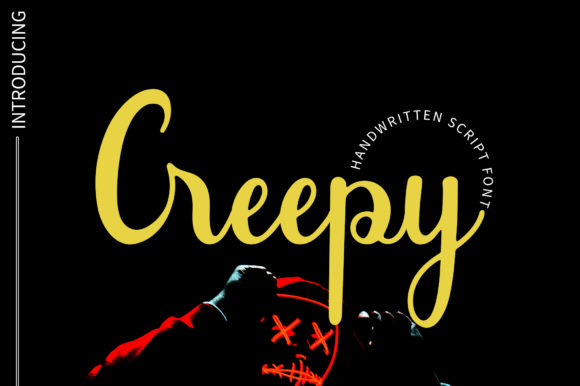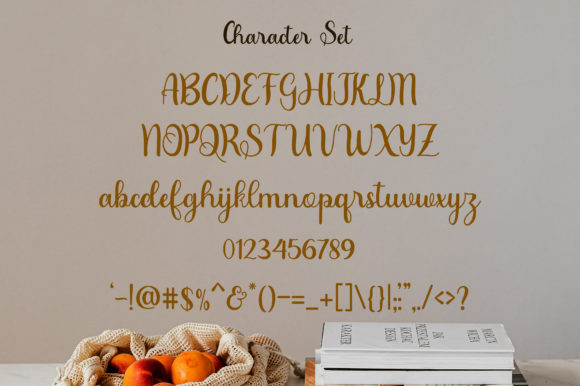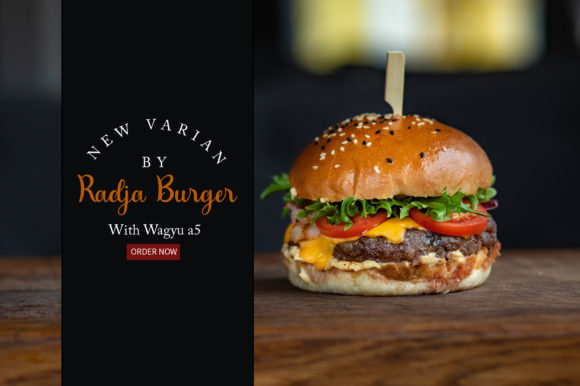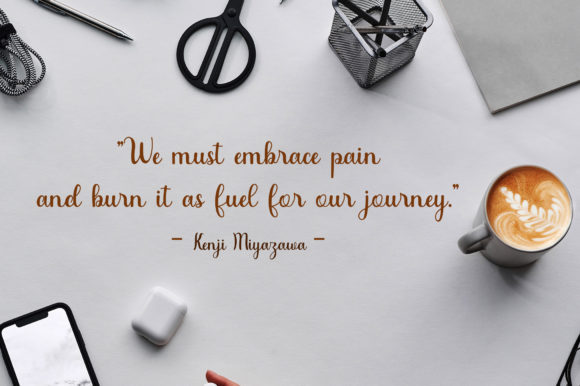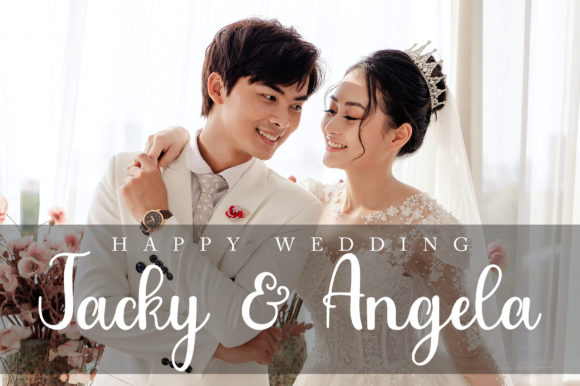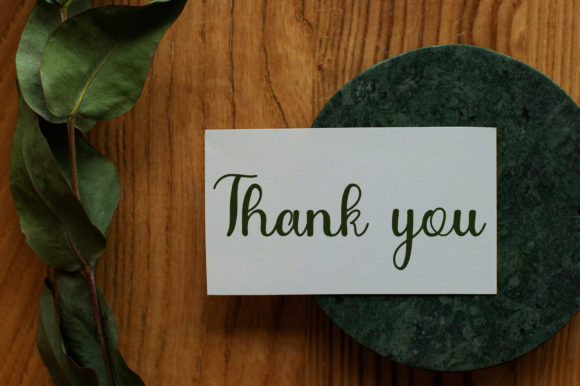
About Creepy Font
Creepy is a chic, refined script font that emanates sophistication and elegance. Its stylish alternates and ligatures make this font the perfect match for any project that requires an authentic and impressive look!